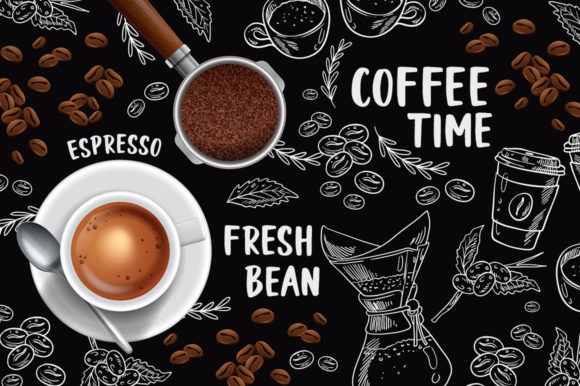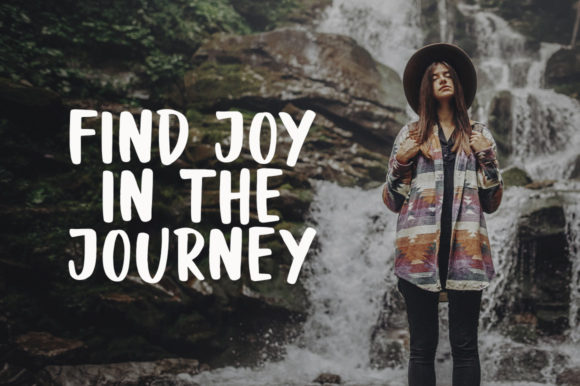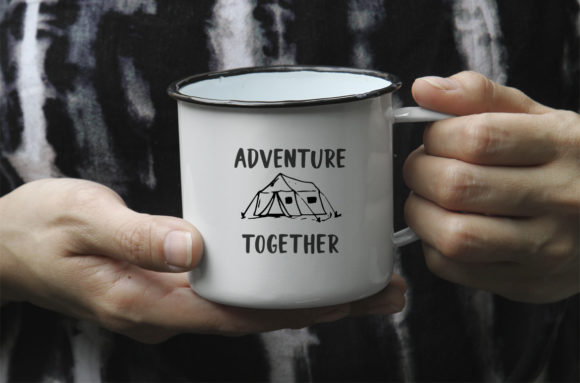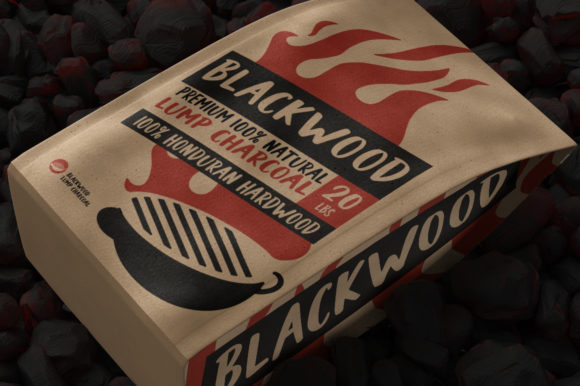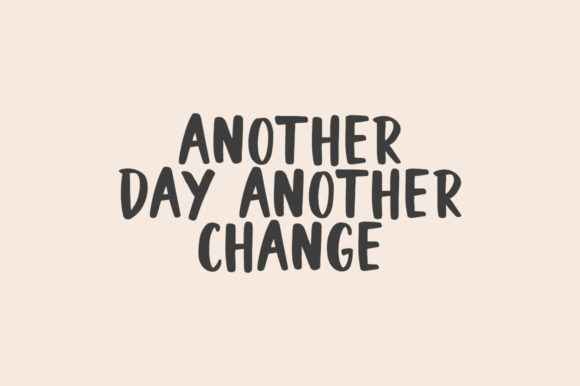
The Great Outdoors, Brought Indoors: A Deep Dive into Camping Font
I’ll never forget the time I was working on a camping-themed branding project for a client, and I just couldn’t seem to find the right font to capture the playful, adventurous spirit of the great outdoors. That was until I stumbled upon Camping Font – a cute and playful display font that instantly transported me to the world of hiking trails and campfires. In this article, we’ll explore what makes Camping Font so special, its uses, and some practical tips on how to make the most of it in your designs.
An Honest Review of Camping Font
- ✨ Playful and Whimsical: Camping Font has a unique charm that adds a touch of playfulness to any design project.
- ✅ Easy to Read: Despite its playful nature, the font remains clear and easy to read, even at smaller sizes.
- 💡 Versatile: Whether you’re working on a camping-themed project or just want to add some whimsy to your designs, Camping Font is a great choice.
While Camping Font is an excellent choice for many projects, there are a few things to keep in mind:
- 🤔 Limited Use Cases: Due to its playful nature, Camping Font might not be the best fit for more formal or professional projects.
- ⚠️ Legibility at Small Sizes: While generally easy to read, Camping Font can become a bit tricky to read at very small sizes (below 10pt). Be mindful of this when choosing font sizes for your project.
One of the exciting aspects of Camping Font is its support for OpenType features and glyphs. These can add an extra layer of creativity to your designs:
- Stylistic Alternates: Many fonts, including Camping Font, offer stylistic alternates that can be used to create variations of the font.
- Glyphs: Glyphs are special characters that can add more visual interest to your text.
The Designer Inspiration Behind Camping Font
Camping Font was designed with the great outdoors in mind. Its creator wanted to capture the playful spirit of camping and the natural world, making it perfect for designs that need a touch of whimsy and adventure.
| Font Name | Camping Font |
| Author | Graphix Line Studio |